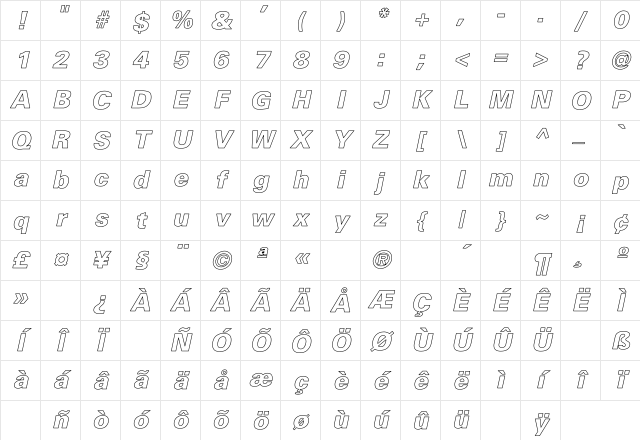
Univers-Black-Italic Hollow Regular
Design Context for Univers-Black-Italic Hollow
Univers-Black-Italic Hollow is a composed and adaptable typeface that performs quietly and consistently across a wide range of design contexts. The slanted form adds forward momentum and visual energy.
Pro Tip: Use Univers-Black-Italic Hollow for emphasis, pull quotes, and subheadings where its slanted energy can add rhythm to the layout.